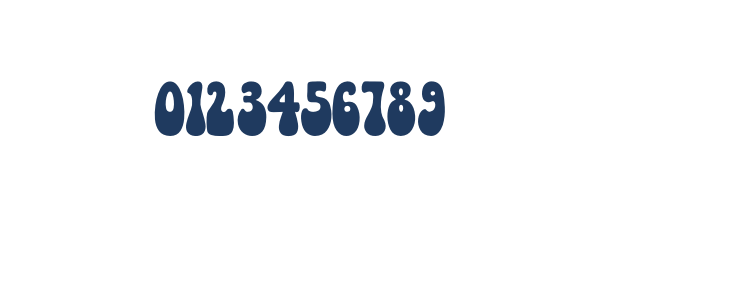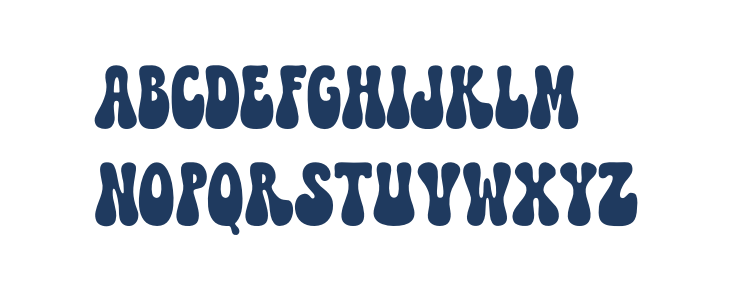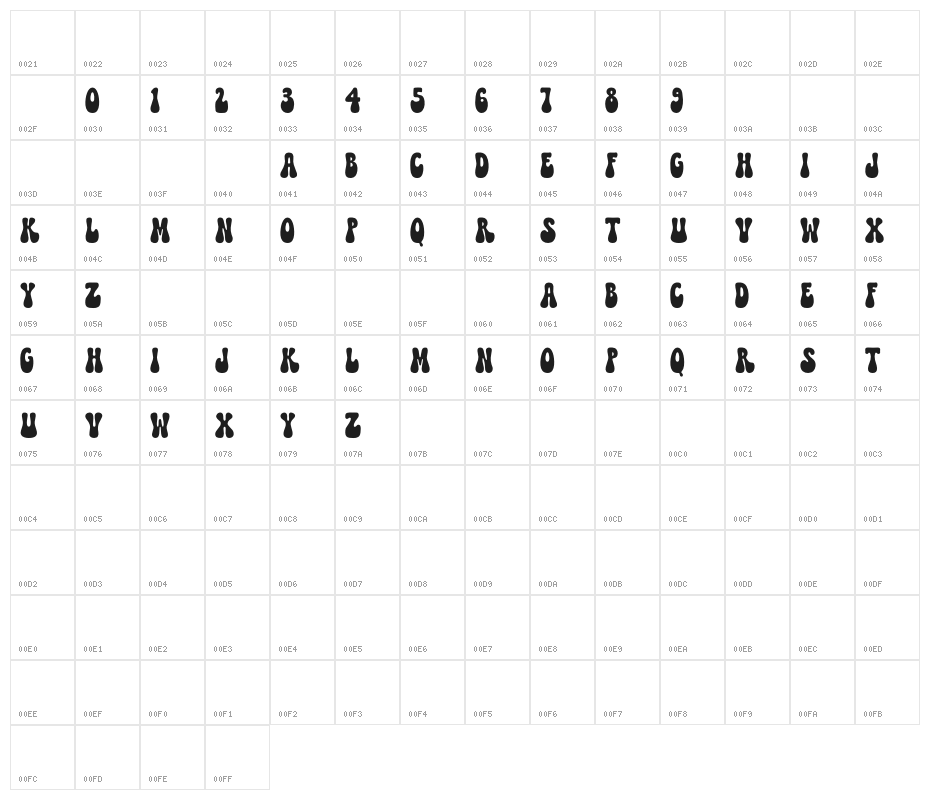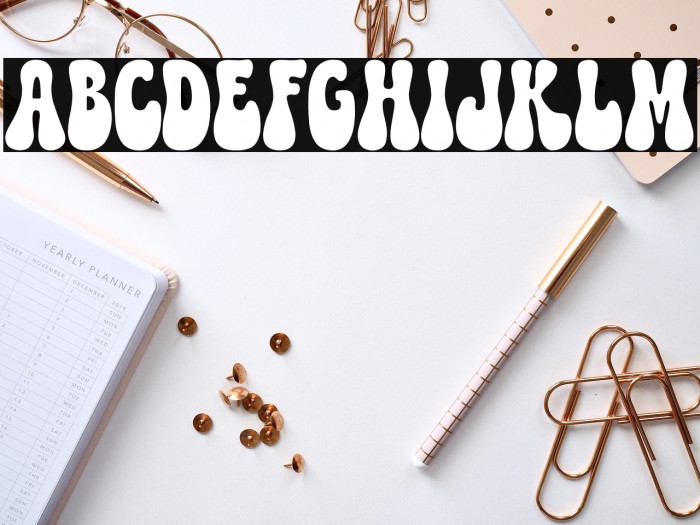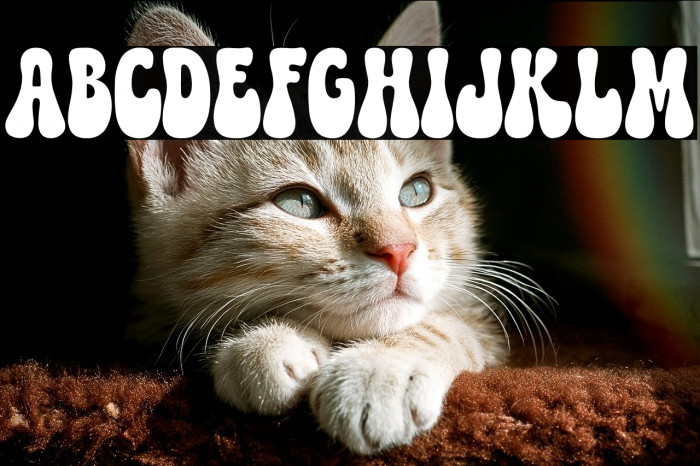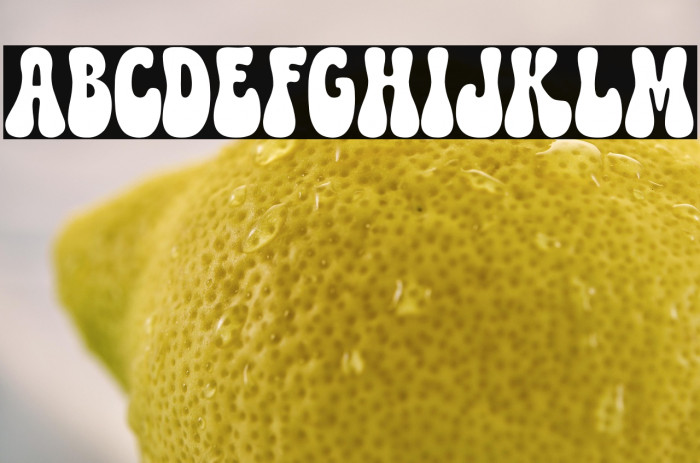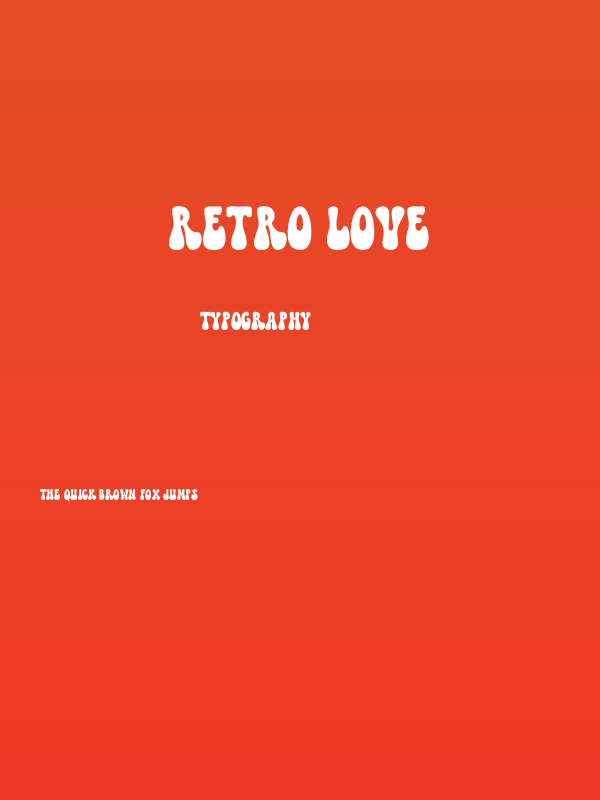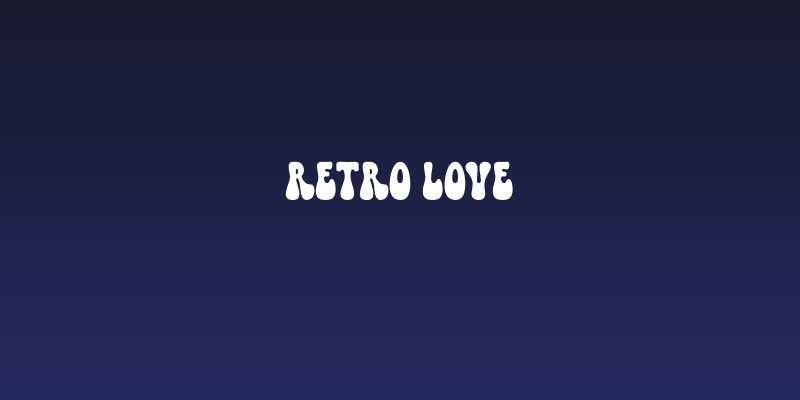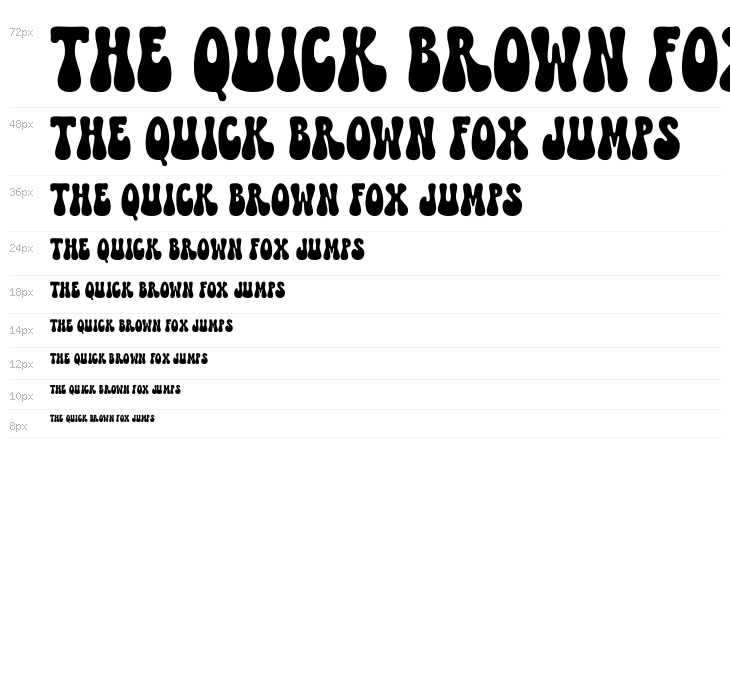
Retro Love Font
Retro Love Description
| Overall Style | Decorative, Retro, Playful |
| Use Case | Headlines, Posters, Logos, Event Promotions |
| Proposed Projects | Posters, music festival branding, retro-themed packaging, party invitations, childrenΓ’β¬β’s products, and eye-catching headlines. |